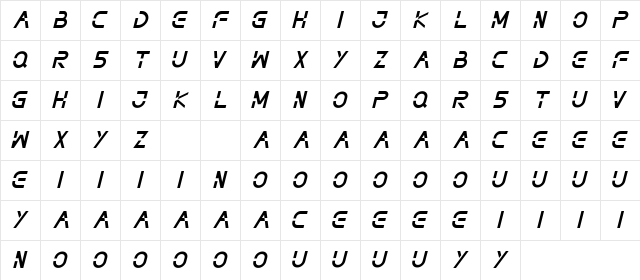
NOTHAN DEMO Italic
Design Context for NOTHAN DEMO Typeface
NOTHAN DEMO is a composed and adaptable typeface that performs quietly and consistently across a wide range of design contexts. Its italic angle brings a sense of urgency and motion to the letterforms.
Pro Tip: Use NOTHAN DEMO for emphasis, pull quotes, and subheadings where its slanted energy can add rhythm to the layout.